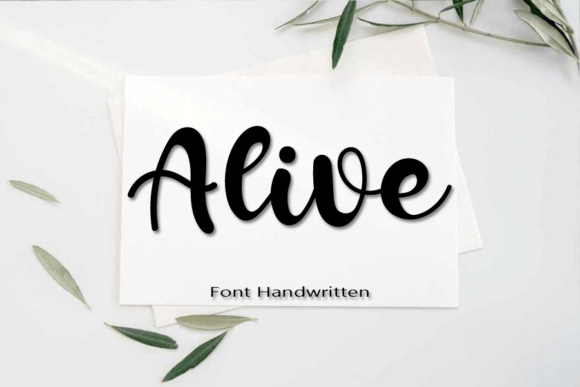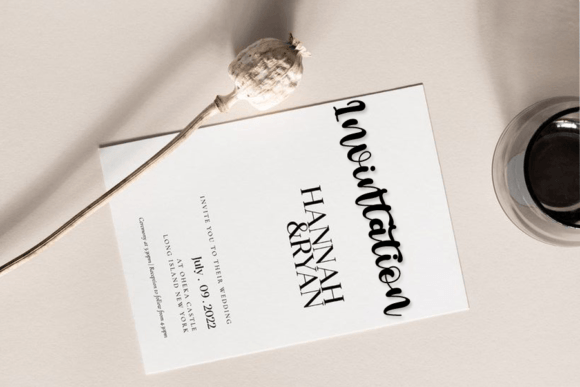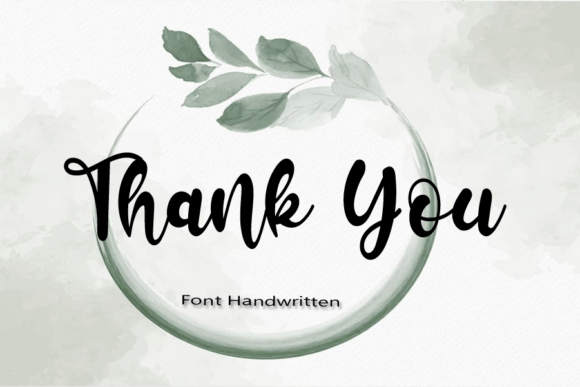
Outside Font
Step into the realm of sweetness with Outside, a sweet and cursive handwritten font crafted to add a touch of joy and romance to your projects. This gentle font is designed to look gorgeous on a variety of design ideas, ensuring it adds a delightful and romantic touch to each of your creative endeavors.
Outside’s charm lies in its cursive and handwritten style, bringing a sense of warmth and authenticity to your text. Whether you’re working on logotypes, headlines, corporate or brand identity, posters, or any creative project, Outside is created to enhance the visual appeal, infusing a joyful and romantic touch.
The versatility of Outside extends across a spectrum of creative possibilities. From apparel industry designs to music, movies, games, magazines, books, comics, cartoons, YouTube, Instagram, websites, and more, this font adapts seamlessly to diverse design contexts, making it suitable for a wide range of applications.
Consider Outside not just as a font but as a delightful addition to your creative toolkit. Its sweet and cursive handwritten style makes it a valuable asset for various design projects, allowing you to express joy and romance through your visuals. Let Outside be the font that adds a touch of sweetness and romance to your creative design projects.